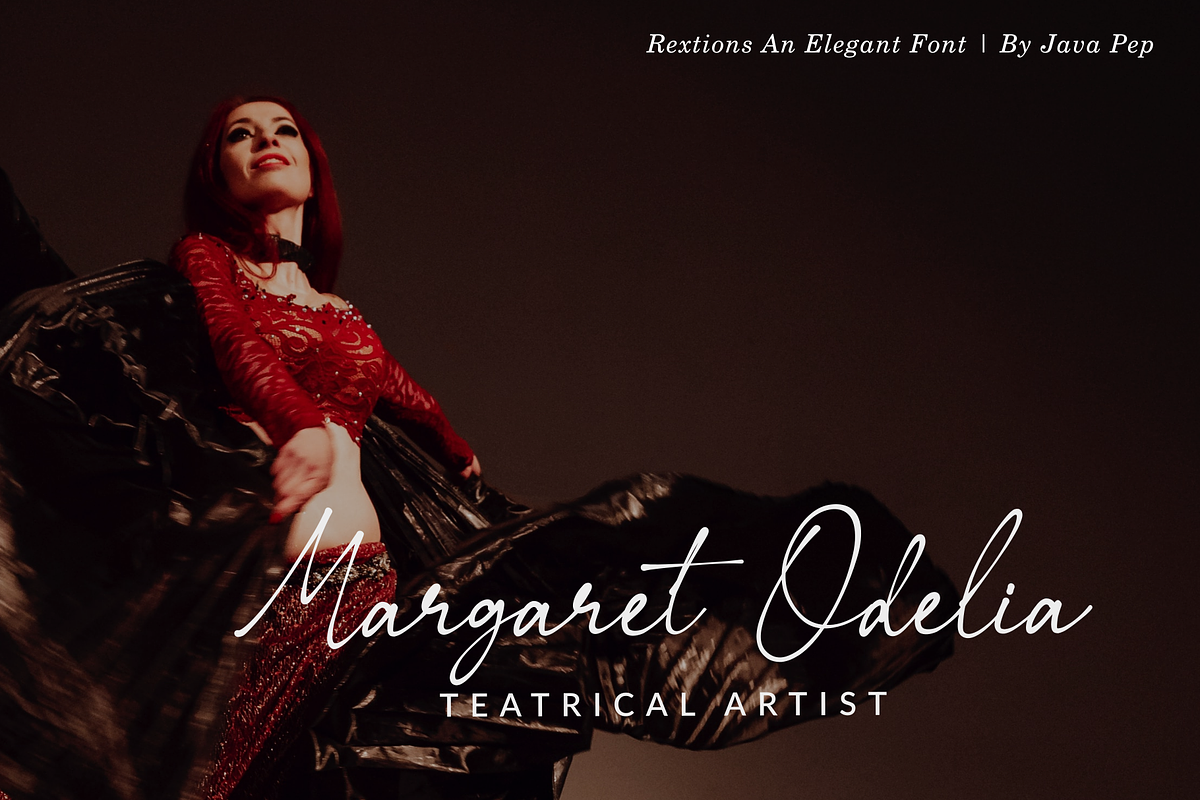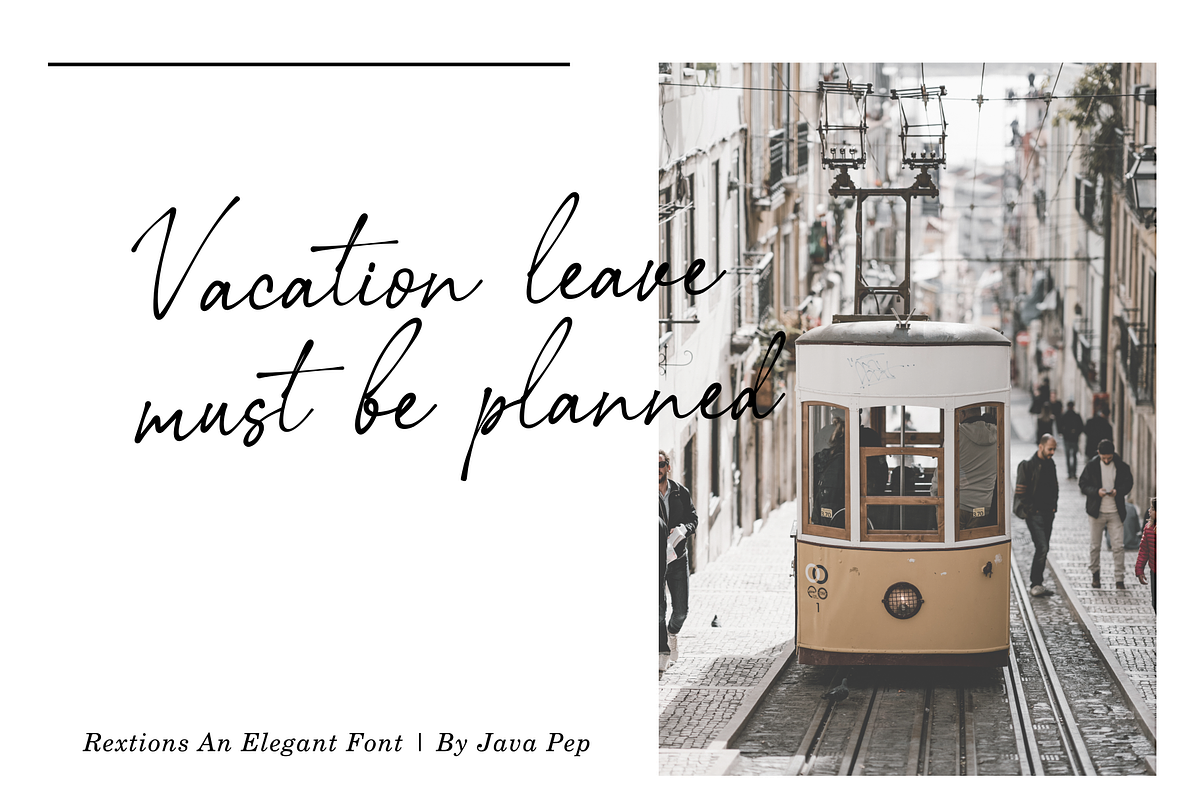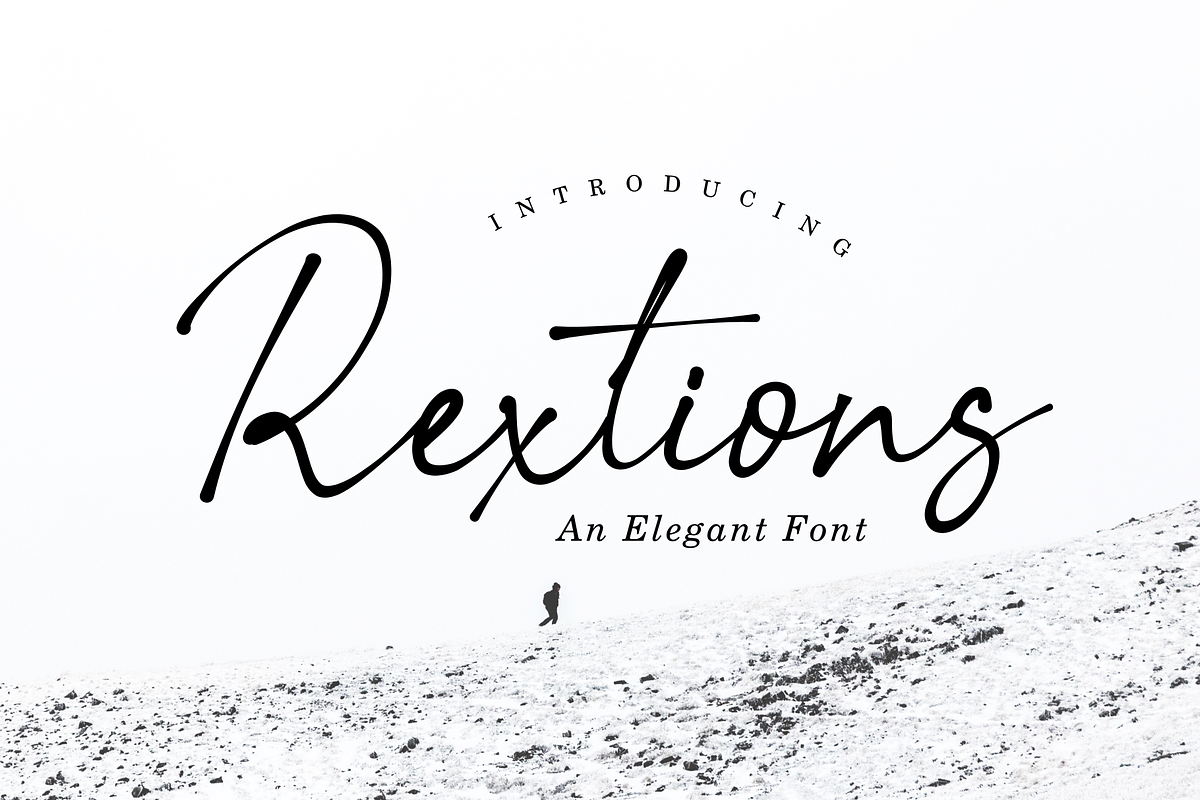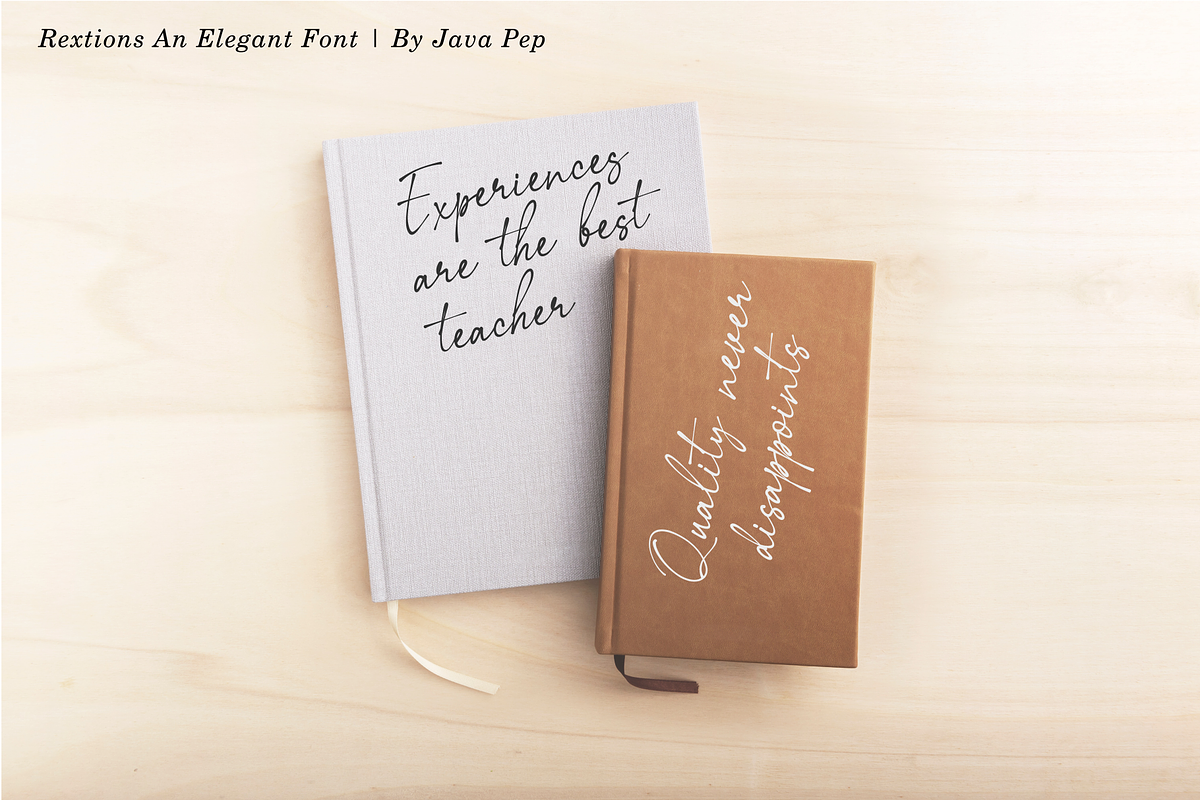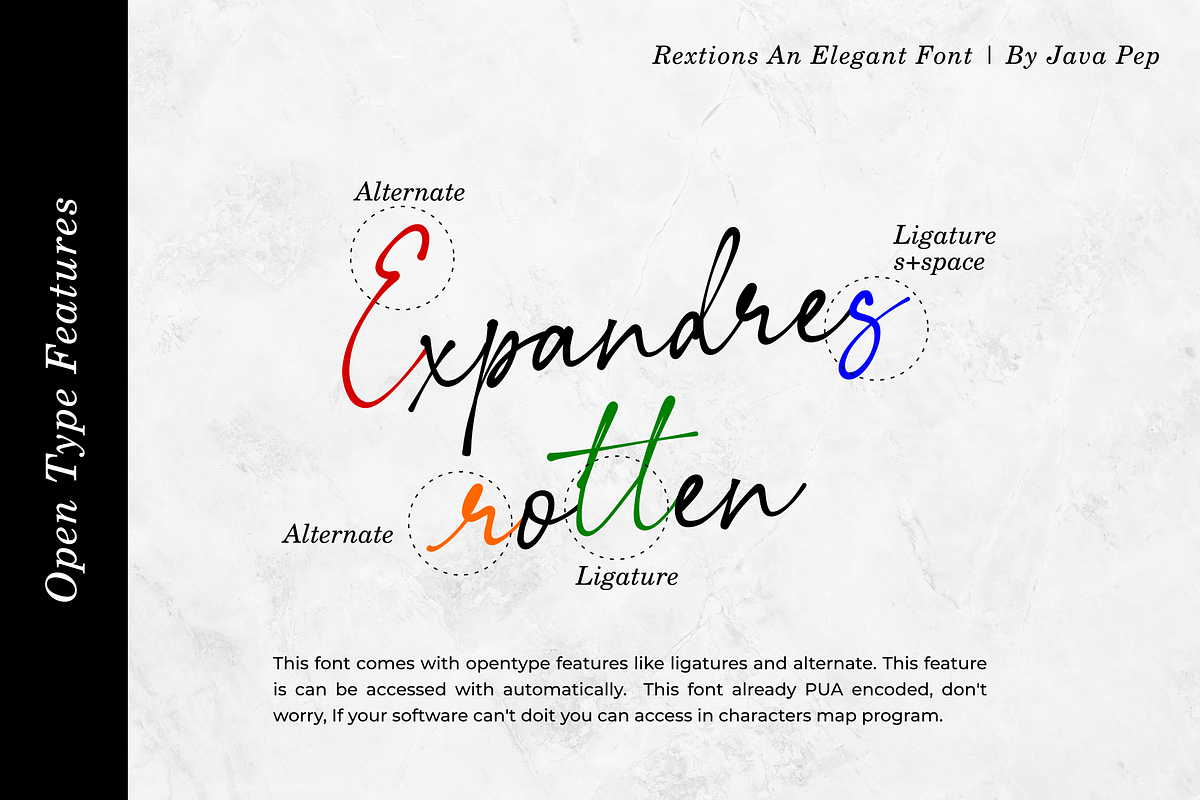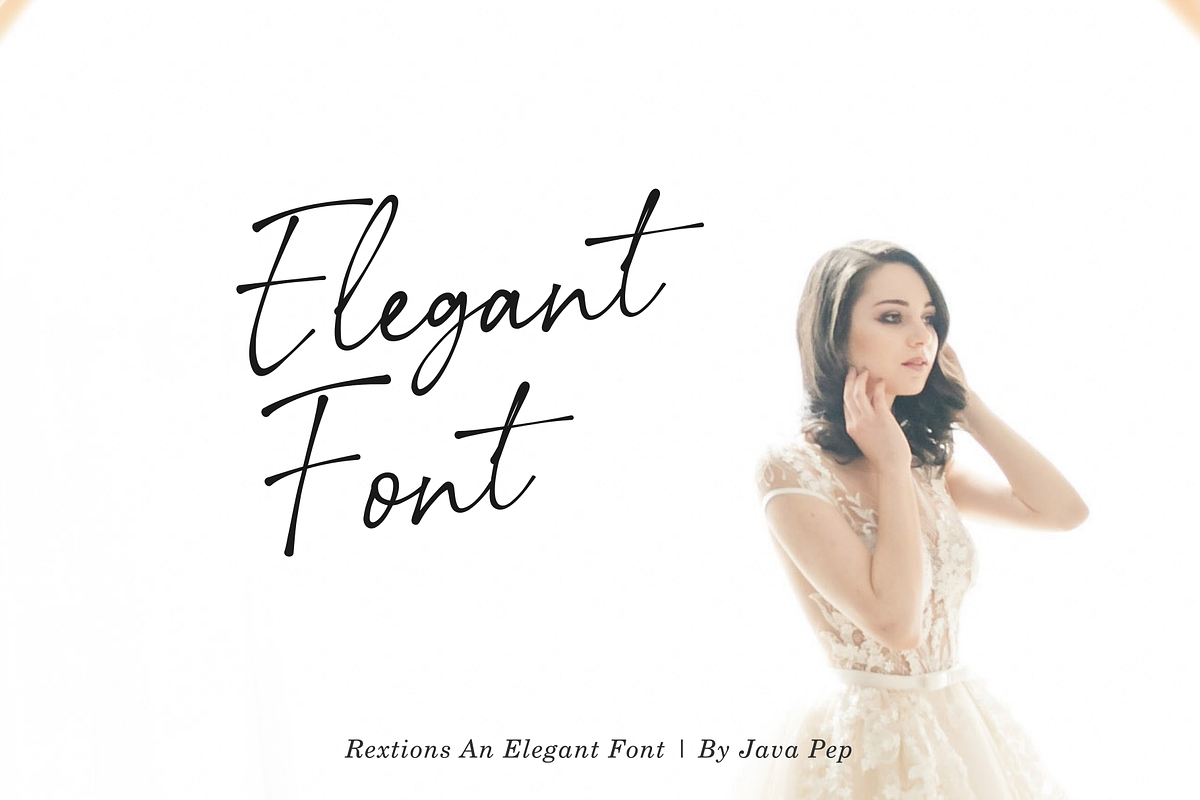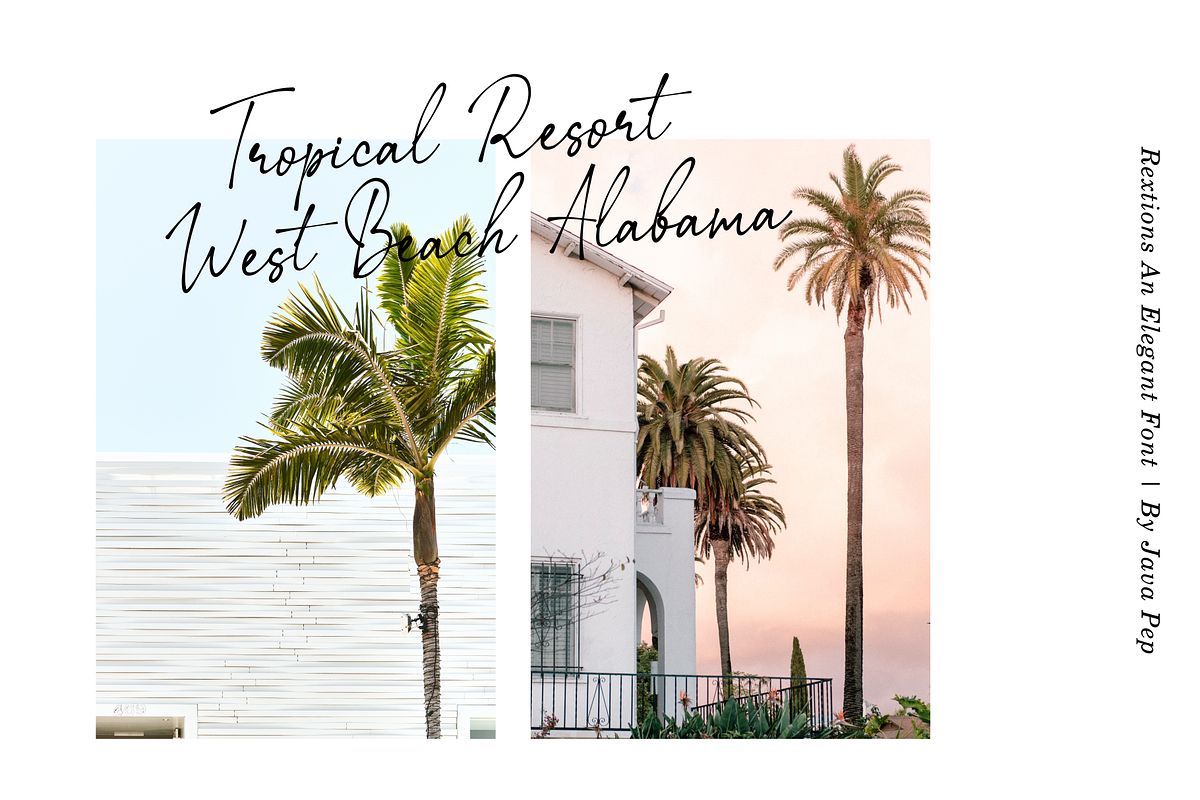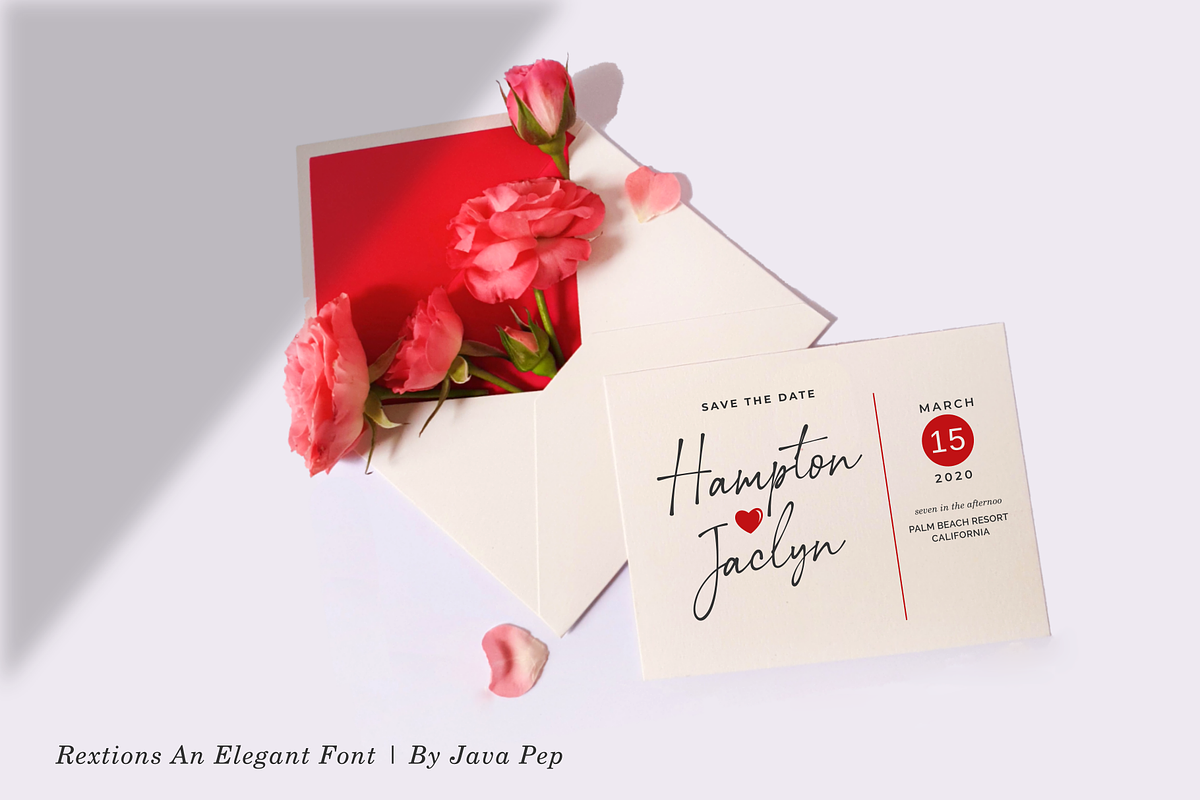
Rextions / an elegant font
Proudly present a new product called Rextions an elegant font, this font made by handwritten basic. Every stroke and shape create with natural handwriting so that the elegant feel is more pronounced and prominent. Rextions an elegant font is perfect for your next design project.